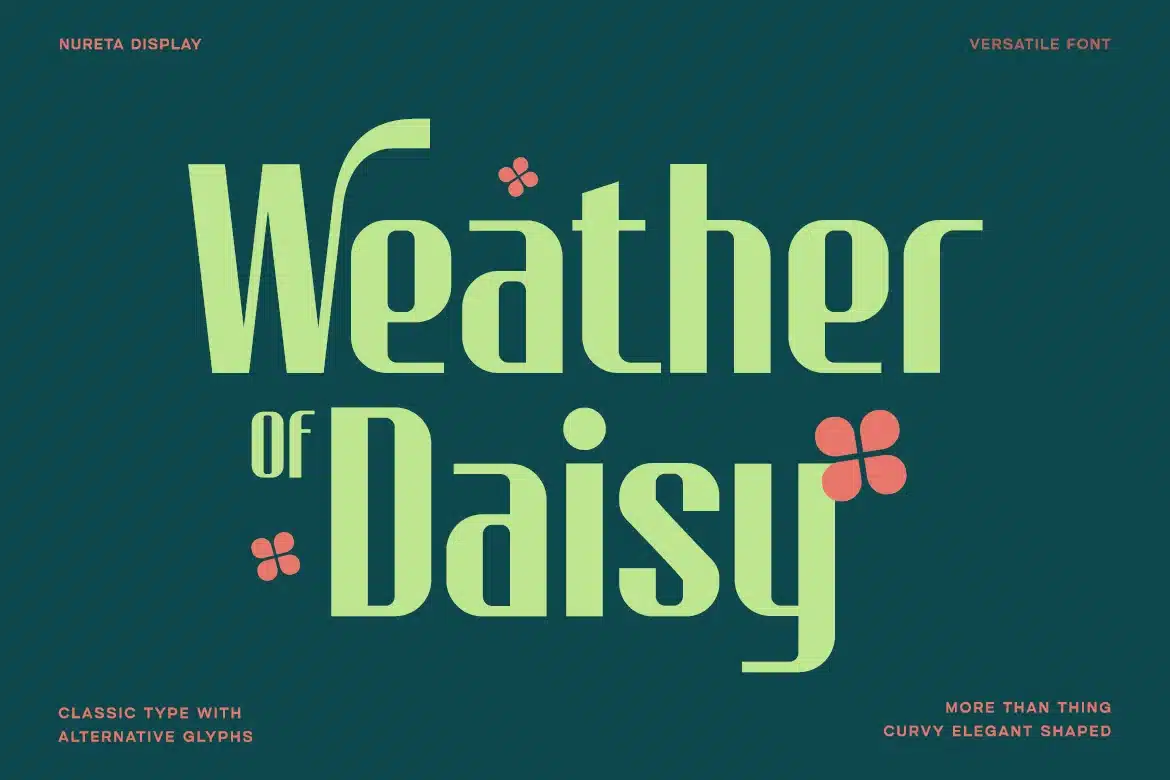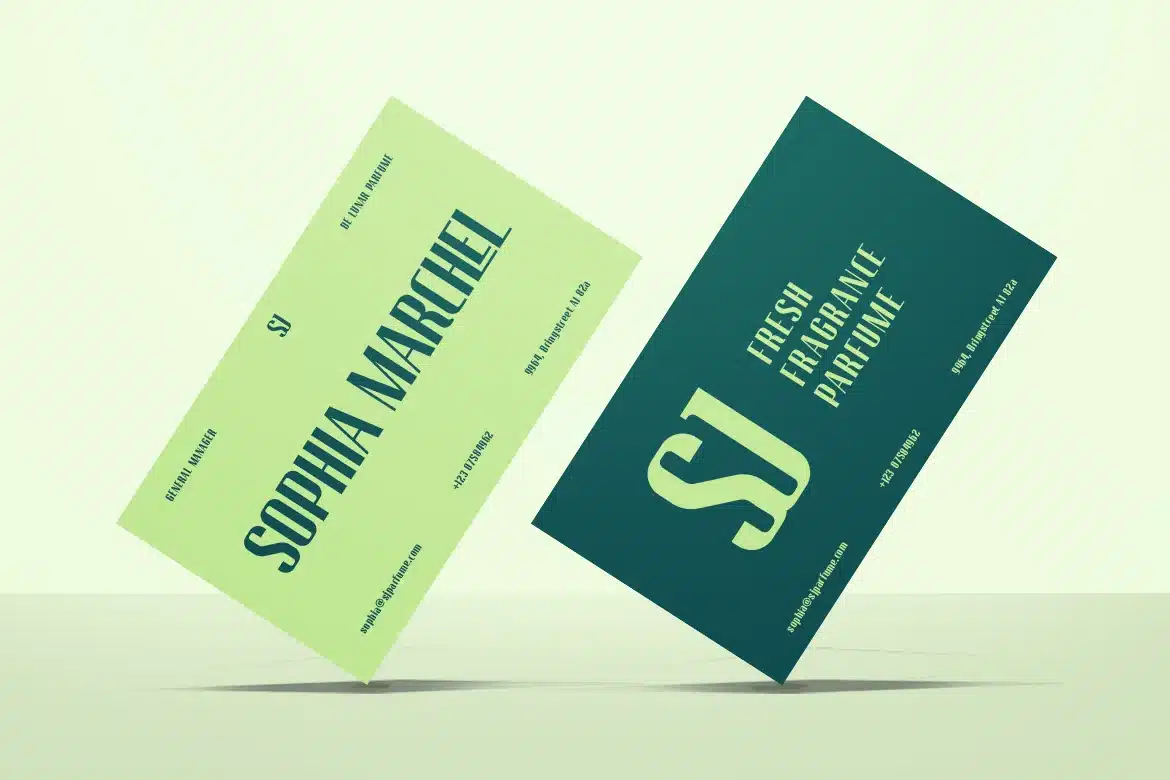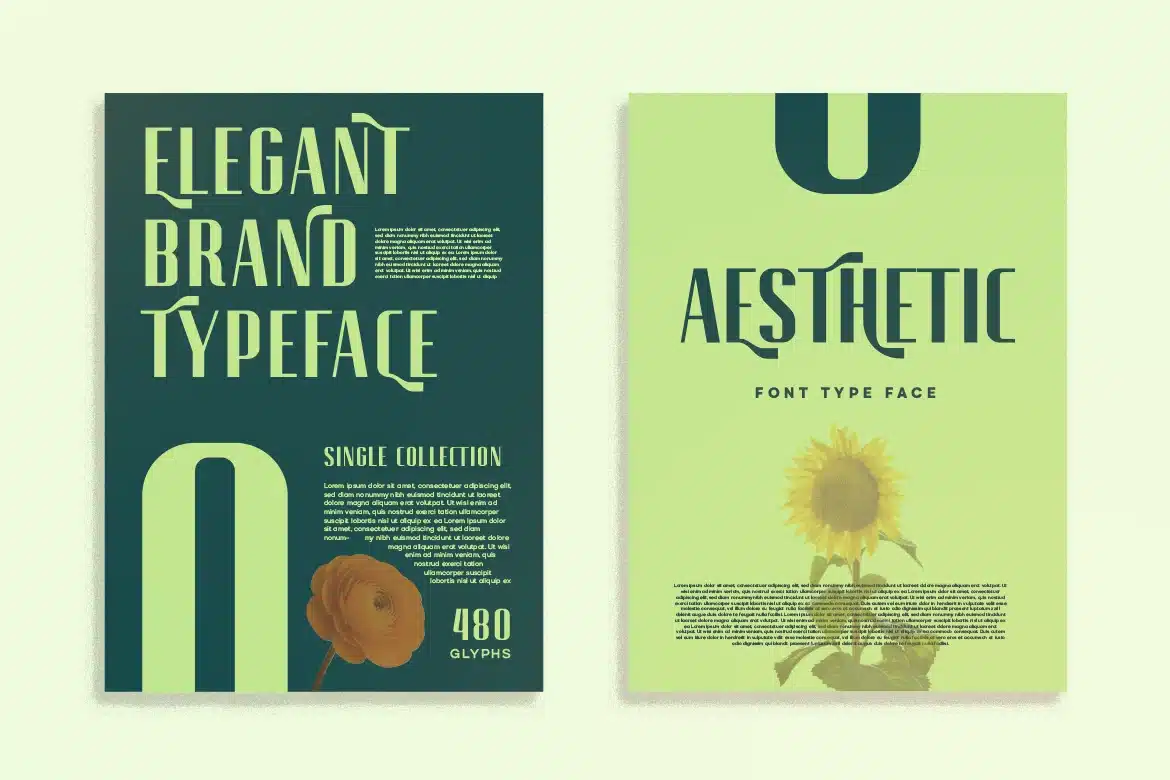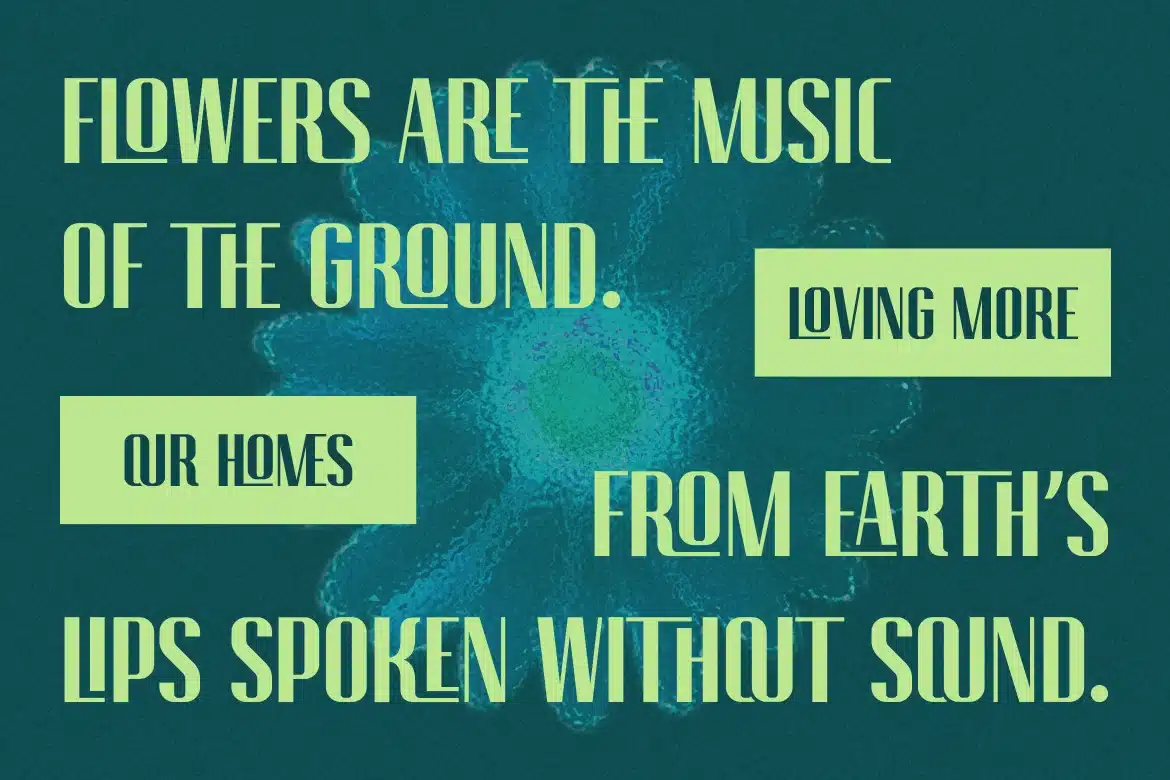
Nureta – Classic & Elegant Display Font
Nureta is a refined typeface that beautifully blends elegance with organic charm. Inspired by the natural flow of forms and subtle imperfections found in nature, Nureta delivers a soft yet sophisticated visual experience. Each curve and stroke is thoughtfully crafted to evoke a sense of harmony, warmth, and timeless beauty.
With its graceful structure and fluid character, Nureta is perfect for branding, packaging, editorial design, and any creative project that seeks a balance between luxury and natural aesthetics. It speaks gently but confidently making it ideal for conveying authenticity, femininity, and modern elegance.
Nureta is more than just a font; it’s an expression of organic sophistication.
Highlight Nureta font features, such as:
- Standard Glyph
- Stylistic Alternates & Ligatures